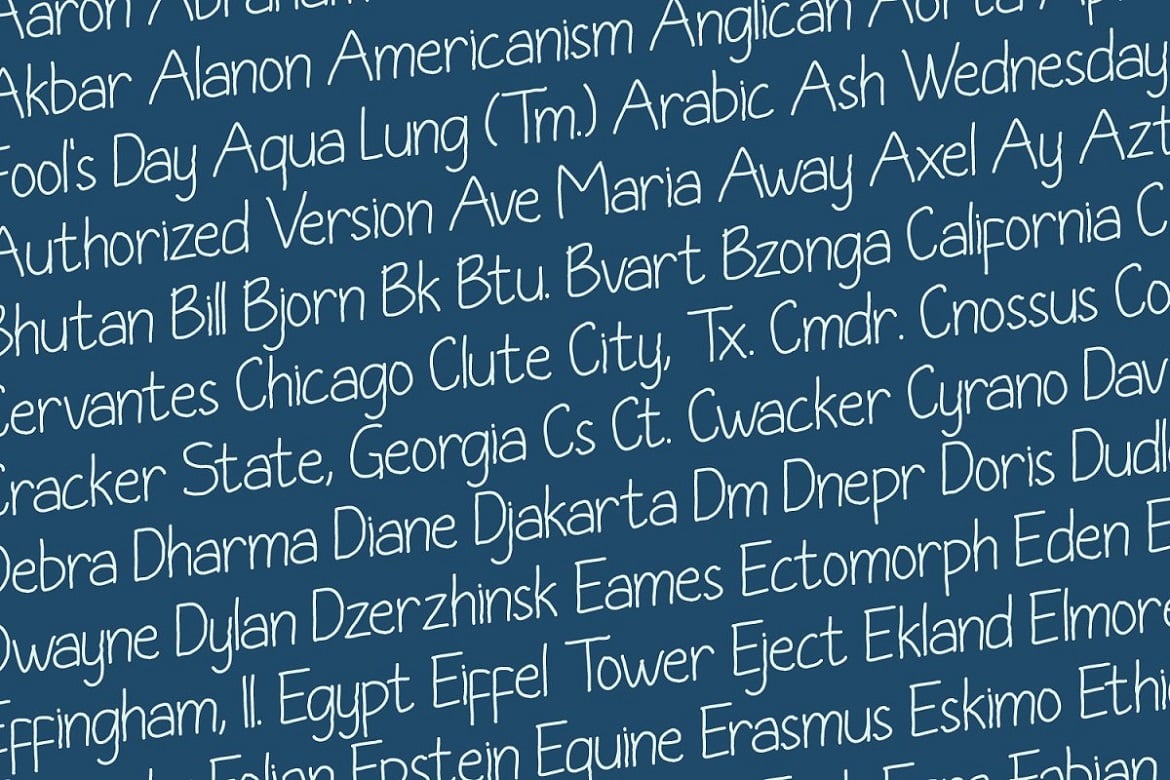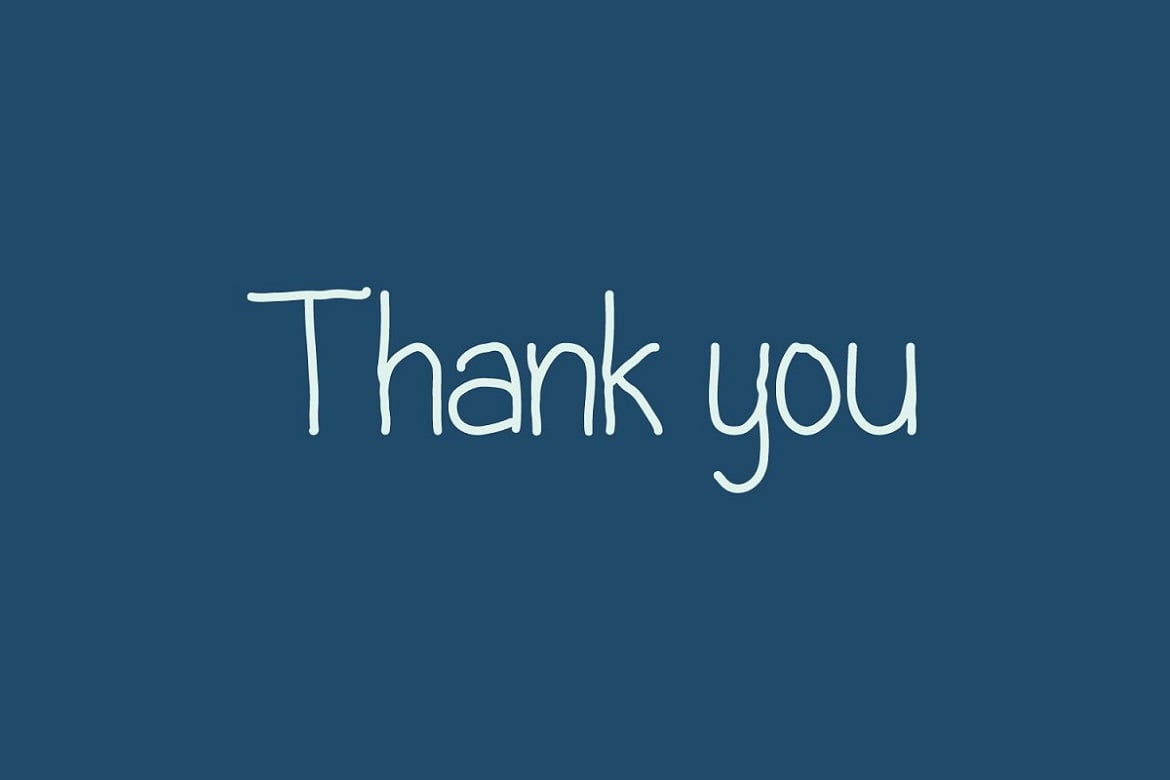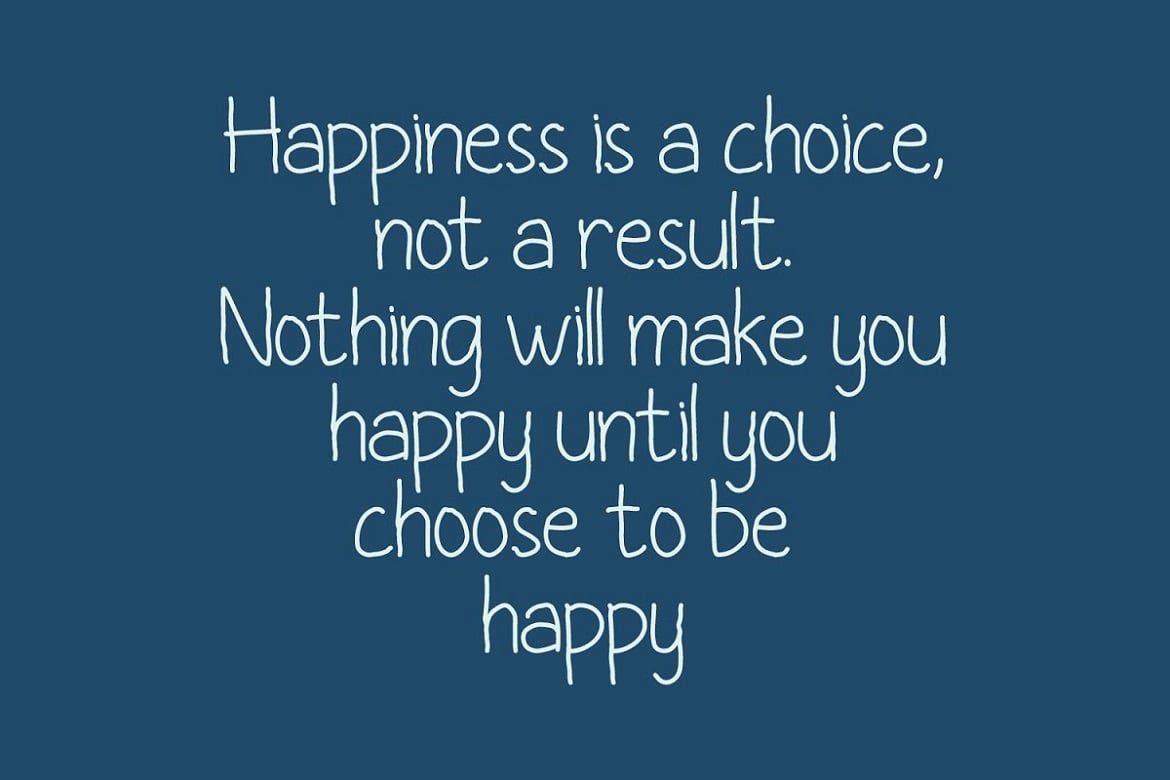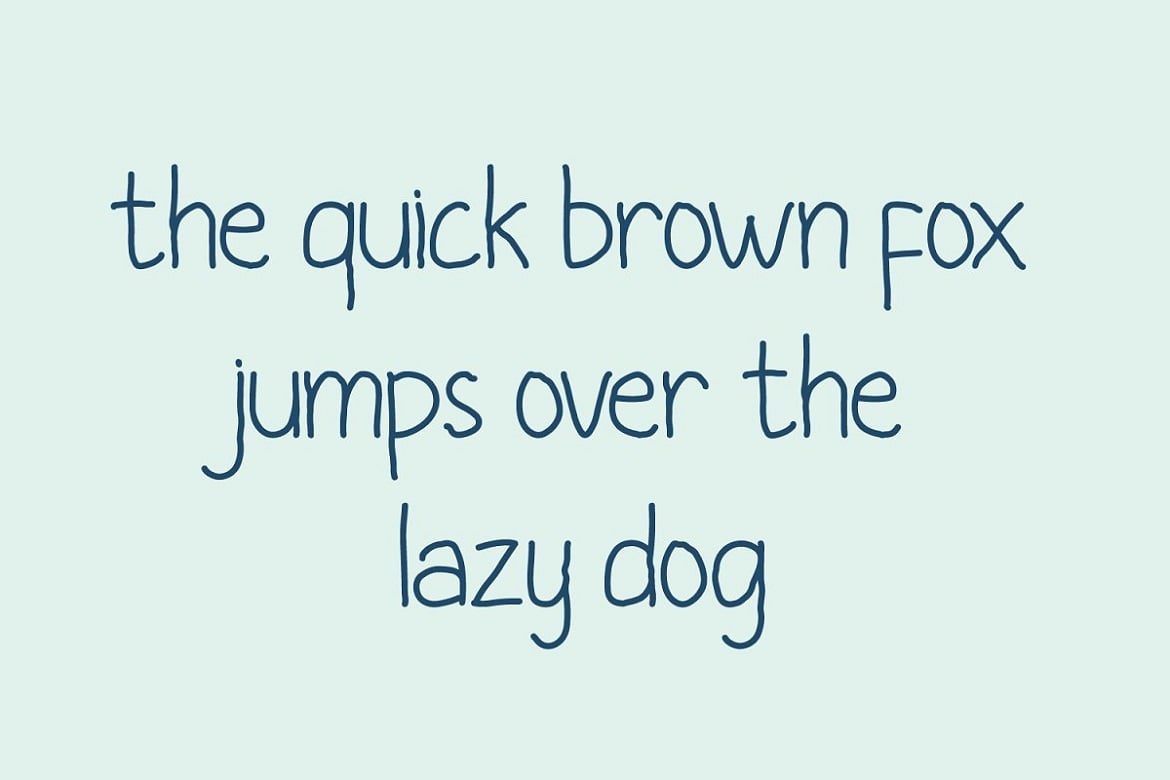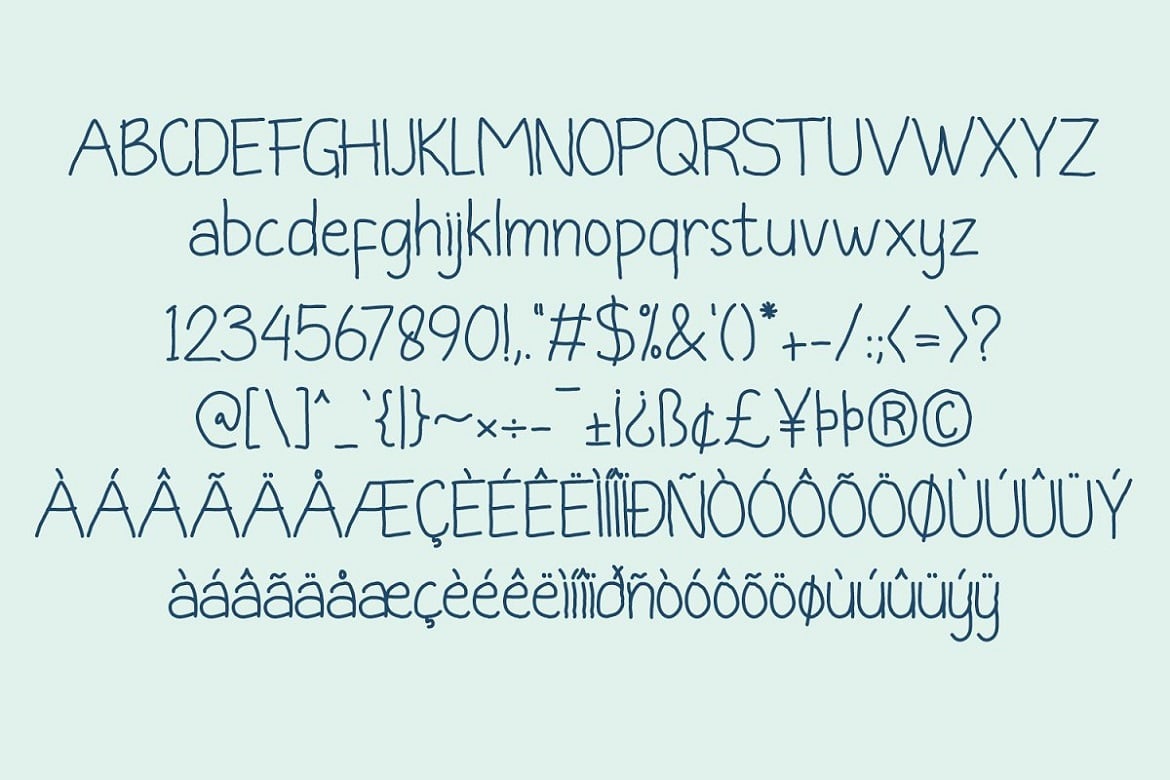
Little Angel – Innocent Handwritten Font
Little Angel is a sweet and innocent handwritten font with a bold feel. It will turn any design project into an eye-catcher!